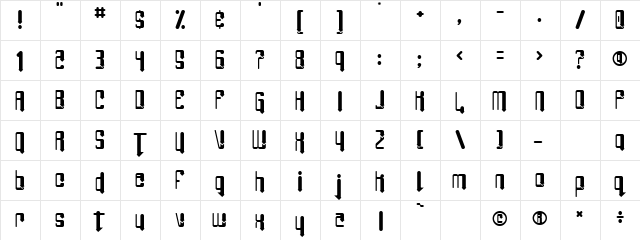
Angie BareFoot Regular
Design Context for Angie BareFoot Typeface
Angie BareFoot is a composed and adaptable typeface that performs quietly and consistently across a wide range of design contexts.